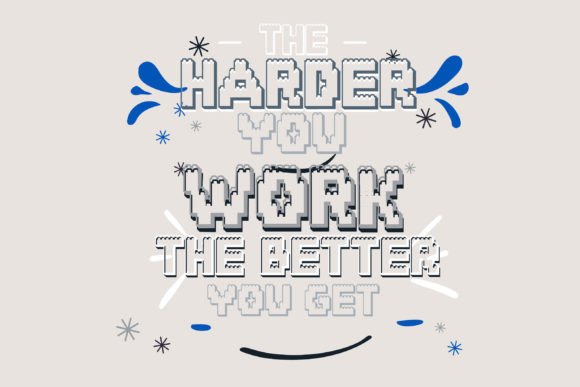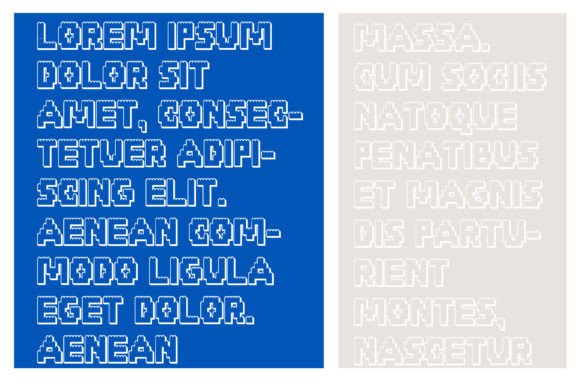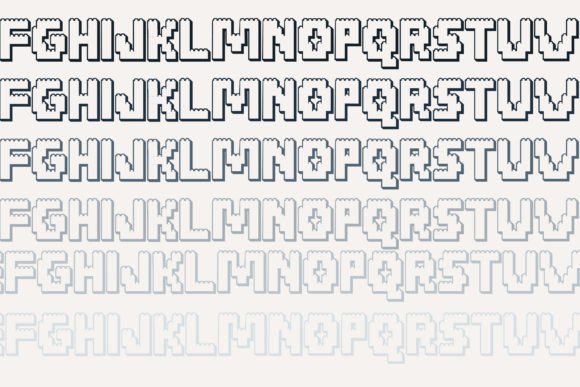
Brick Blocks 3d Font
Brick Blocks 3D is a fun font that mimics the look of 3D textured building blocks. Each letter resembles a colorful brick, stacked together to create a playful and unique effect. It’s perfect for adding a touch of creativity and excitement to your designs or projects!